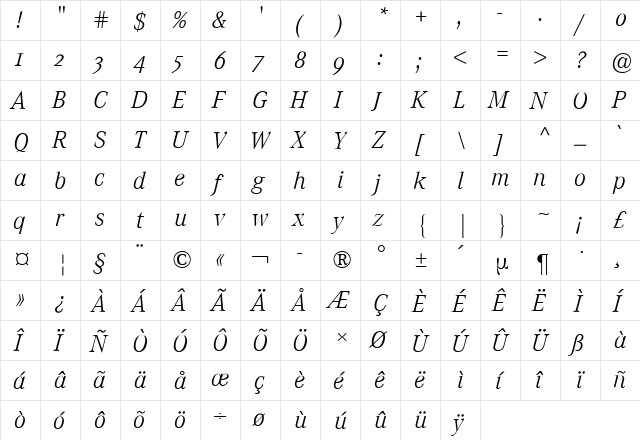
Corporate A Expert BQ Light Italic Font Preview
Design Context for Corporate A Expert BQ Typeface
Corporate A Expert BQ offers clean, dependable letterforms without strong stylistic allegiance, making it a practical choice for designers who need flexibility. Its italic angle brings a sense of urgency and motion to the letterforms. Its slender proportions lend an understated elegance to any composition.
Pro Tip: Use Corporate A Expert BQ for emphasis, pull quotes, and subheadings where its slanted energy can add rhythm to the layout.